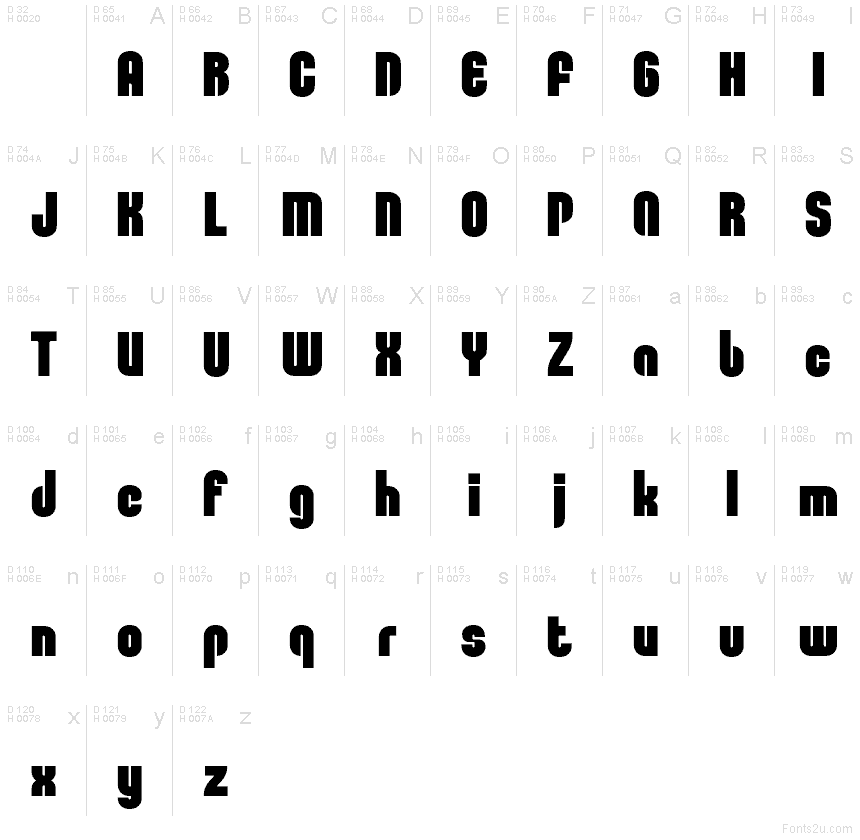
CS Dayne Regular Demo
CS Dayne font by Craft Supply Co. is a rounded display font with geometric influences and groovy appearance. The best part about this retro-inspired free font is that it carries a modern appeal as well. Despite its uniqueness, the font can effortlessly complement other designs and even add life to dull layouts.
Use it in posters, graphic design artworks, packaging design, logotypes, book cover design, greeting cards artwork, invitations typography, t-shirt printing designs and logos of small businesses. It’s bold style also makes great headlines that cannot go unnoticed in websites and magazines.